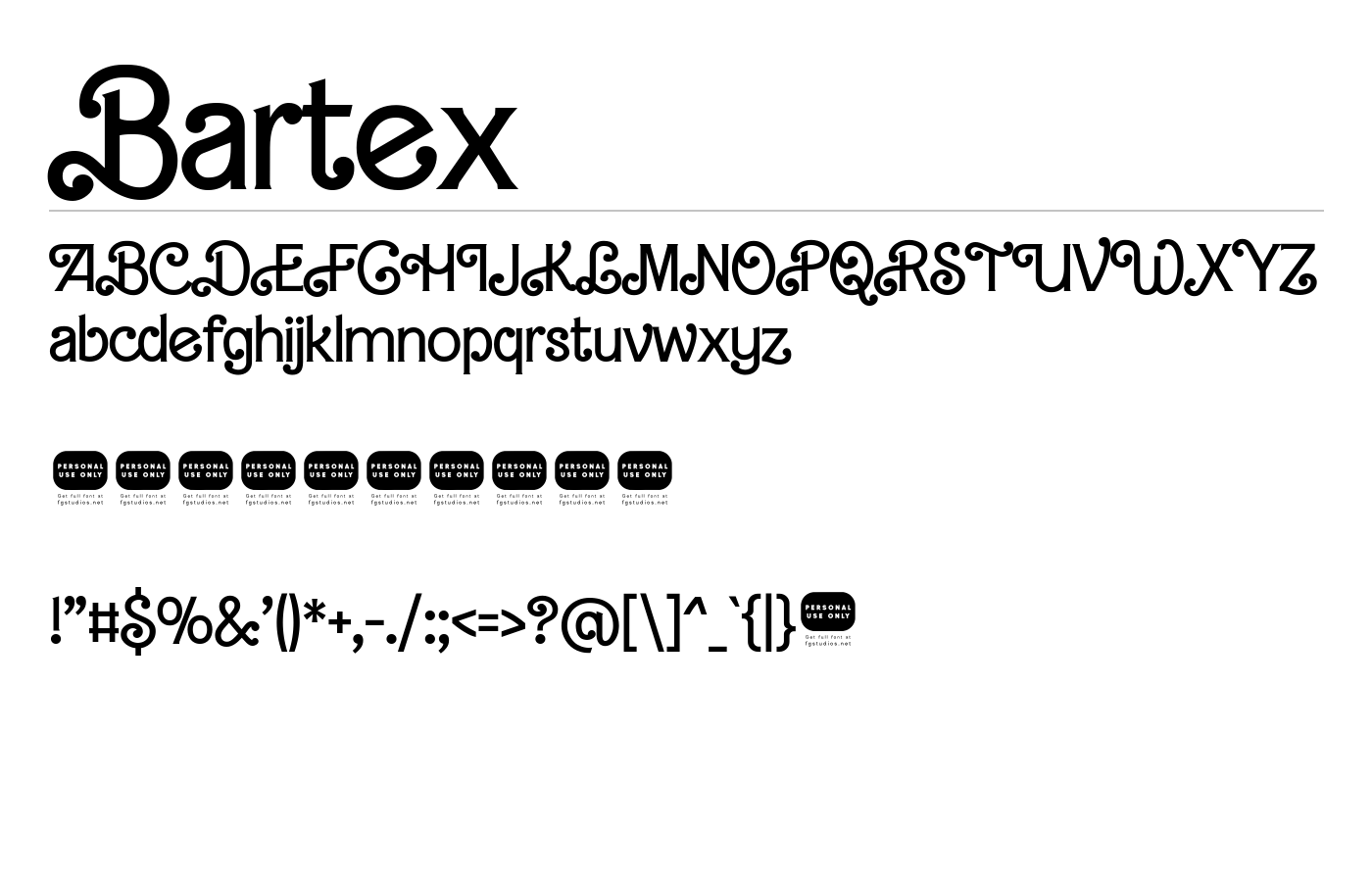
Bartex is a playful serif font featuring distinctive curly terminals and moderate stroke contrast, giving it a whimsical yet structured appearance. Its unique letterforms combine classic serif elements with decorative flourishes, making it ideal for eye-catching headlines, creative branding, and packaging that seeks a quirky, vintage-inspired charm. This font works best where a touch of personality and elegance is desired without sacrificing readability.
Bartex Font